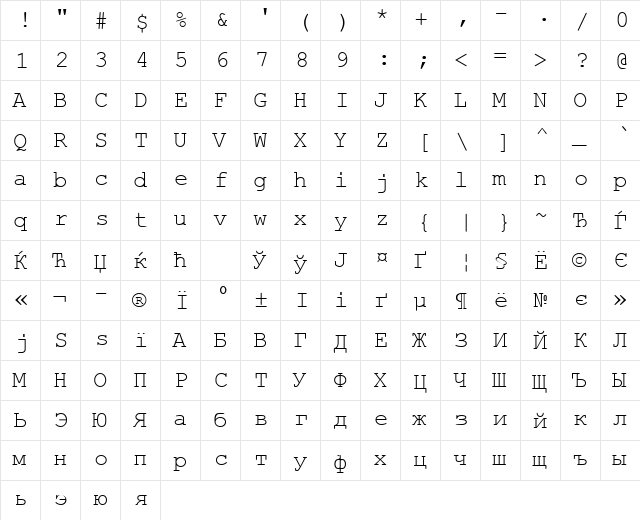
CourtierC Regular
Design Context for CourtierC Typeface
CourtierC offers clean, dependable letterforms without strong stylistic allegiance, making it a practical choice for designers who need flexibility.